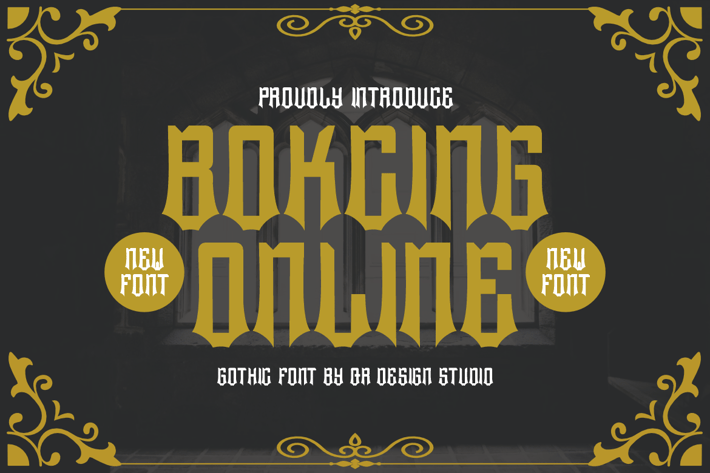
Bokcing Online - Gothic Font
Bokcing Online - Gothic Font is a bold and authentic display font.
The font is suitable for any branding project like poster, vintage, horror, logo, sport, and many more.